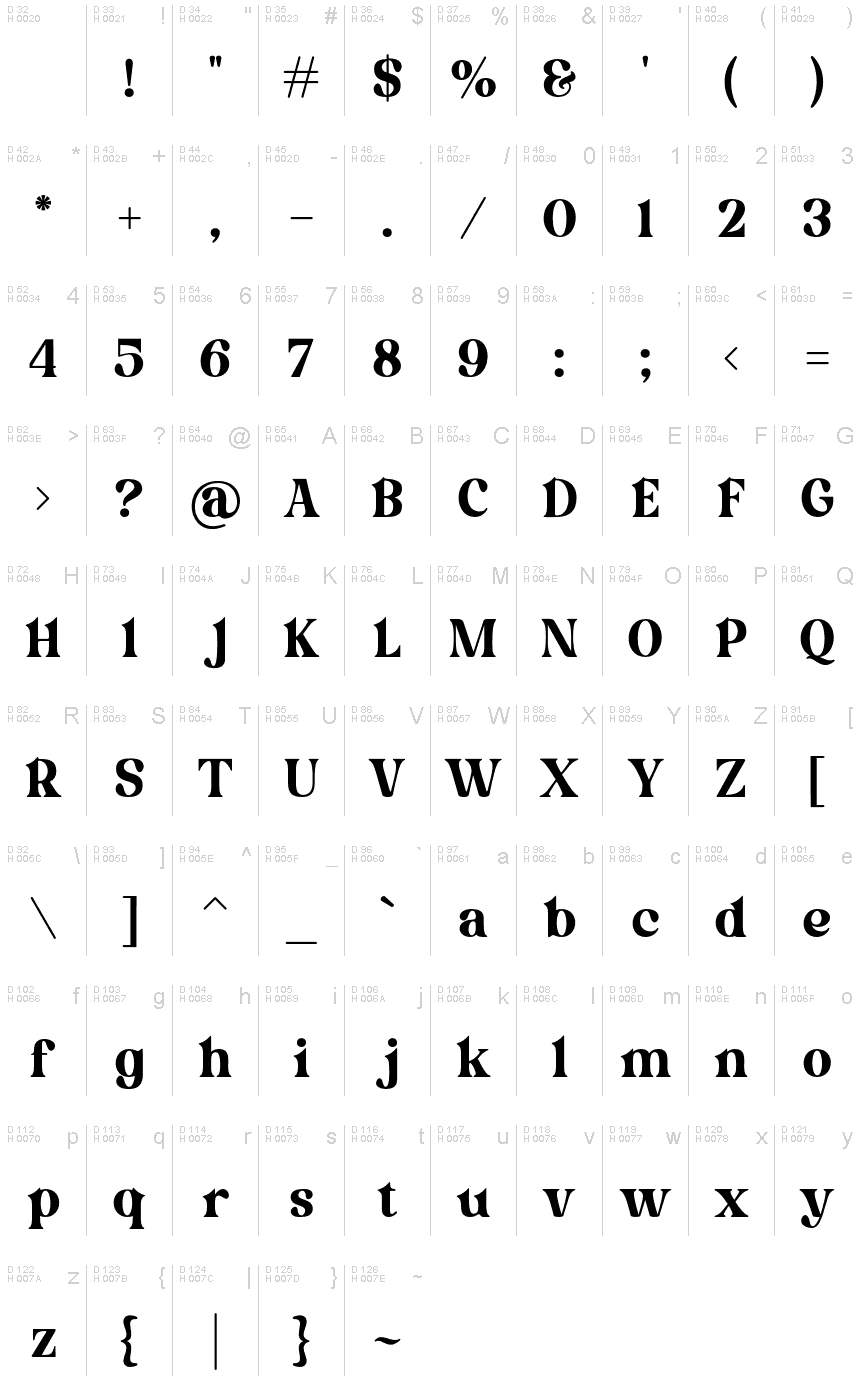
KrifonRegular
Krifon, a bold retro serif font created by Tebaltipis Studio, adds a nostalgic touch to any project. With its unique display typeface,
Krifon is perfect for vintage-inspired designs, such as posters and logos for retro-themed events or products. The bold weight of the font enhances its impact, making it suitable for headlines and titles that need to grab attention. Whether you're designing a throwback album cover or reviving classic packaging design, Krifon will transport your audience back in time with its stylish and eye-catching retro charm.